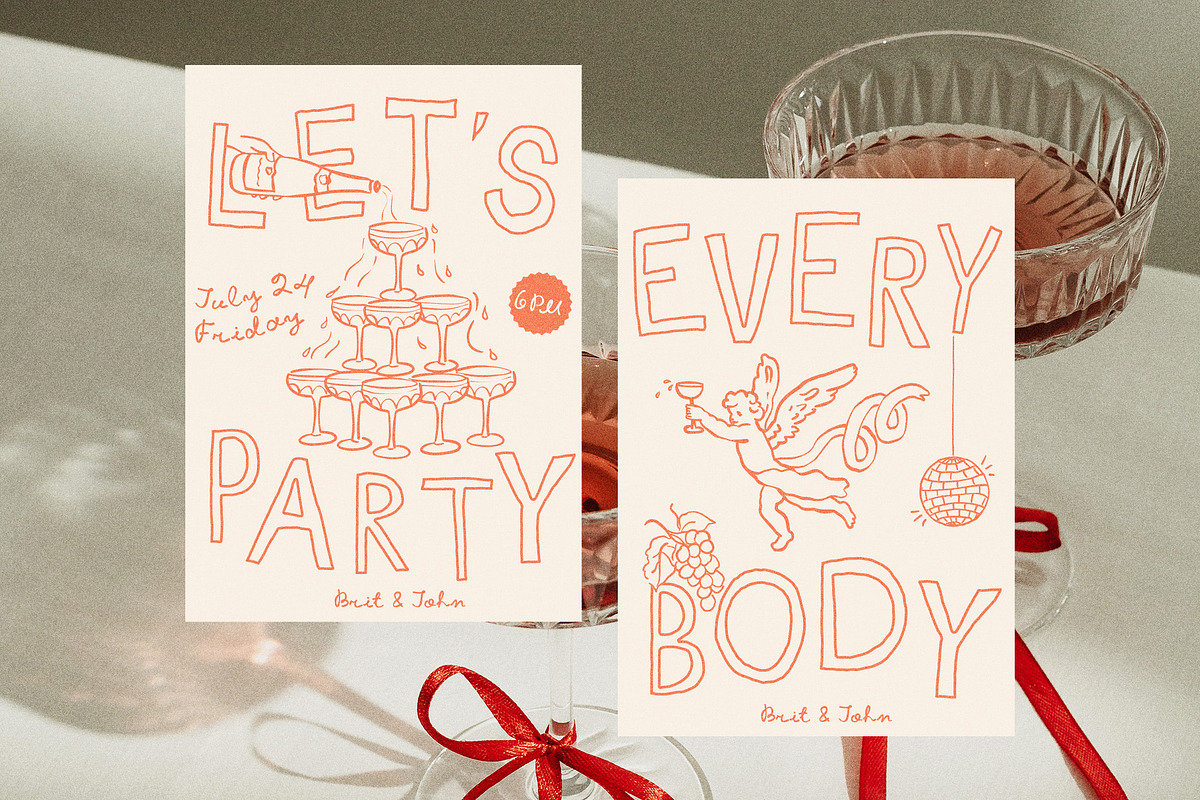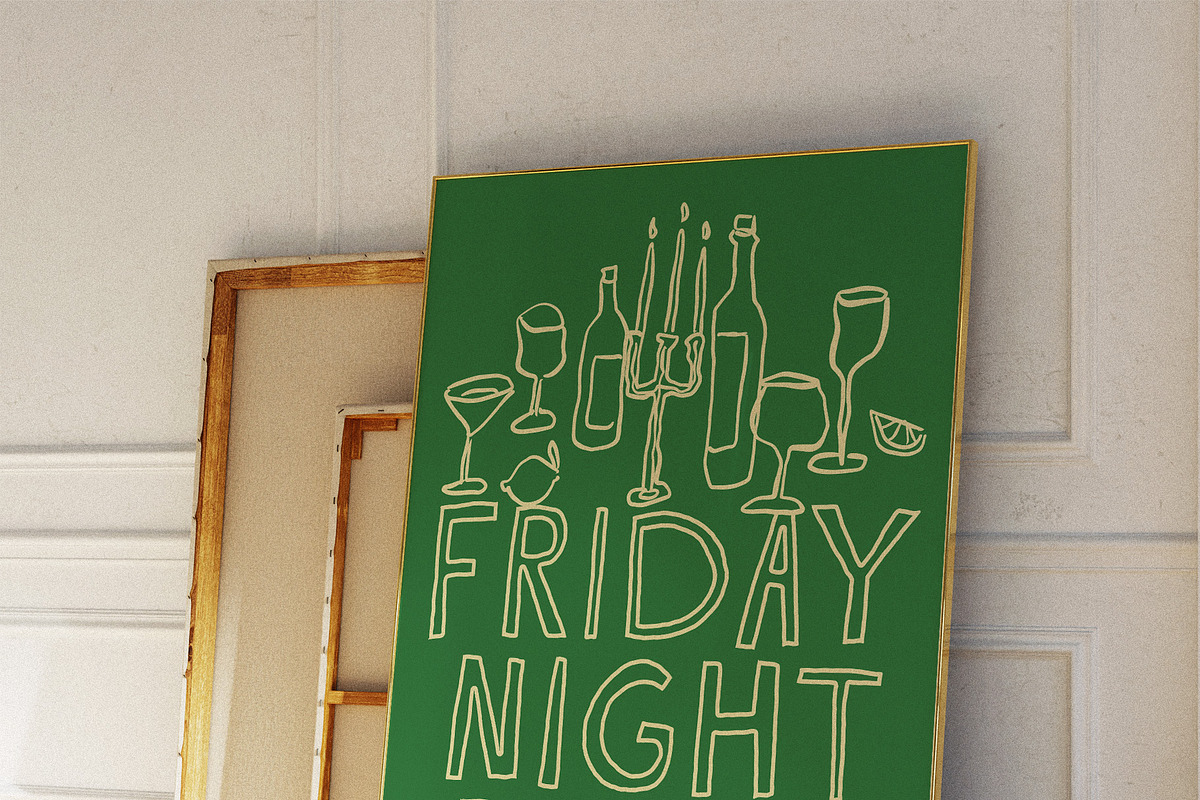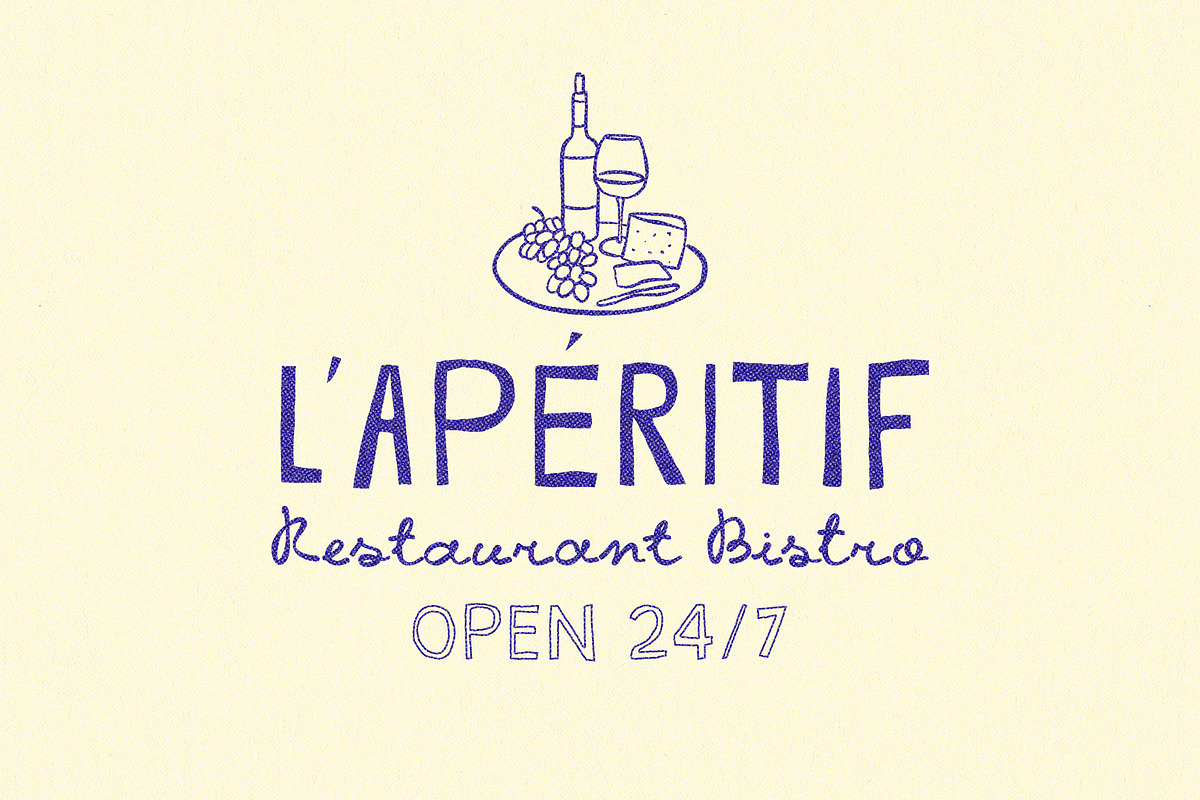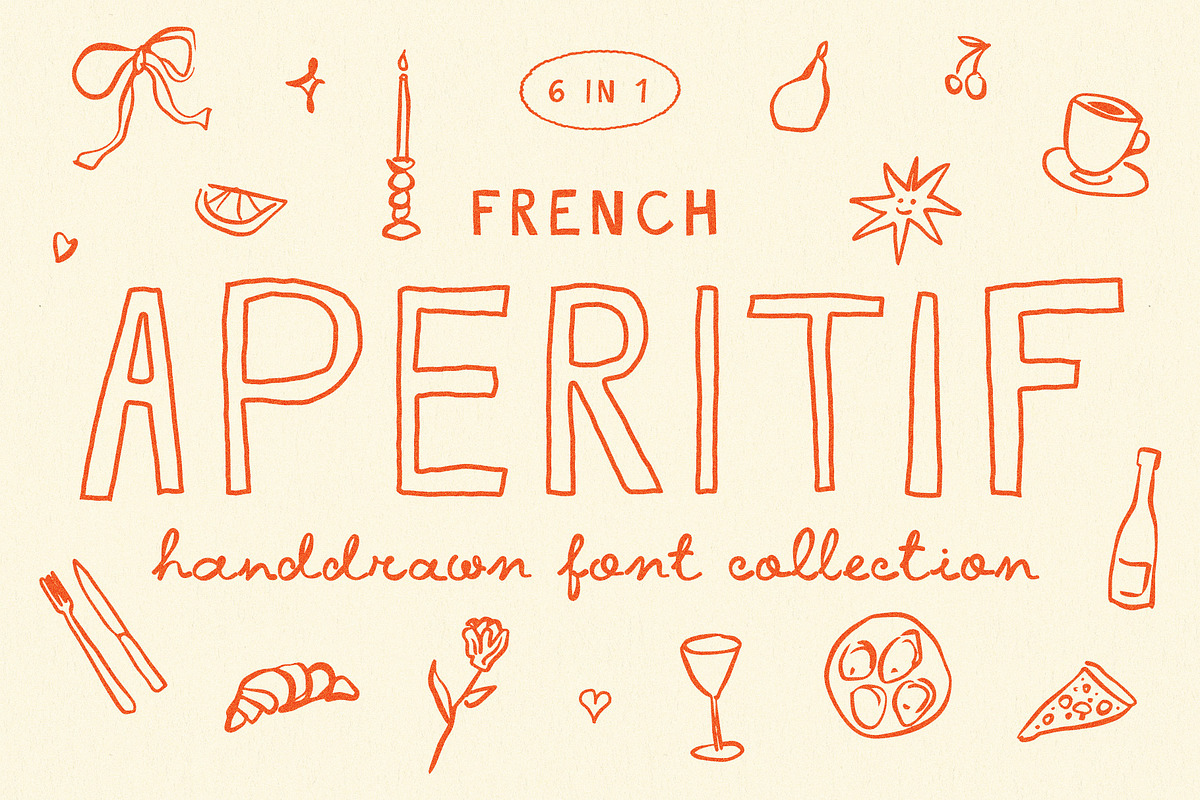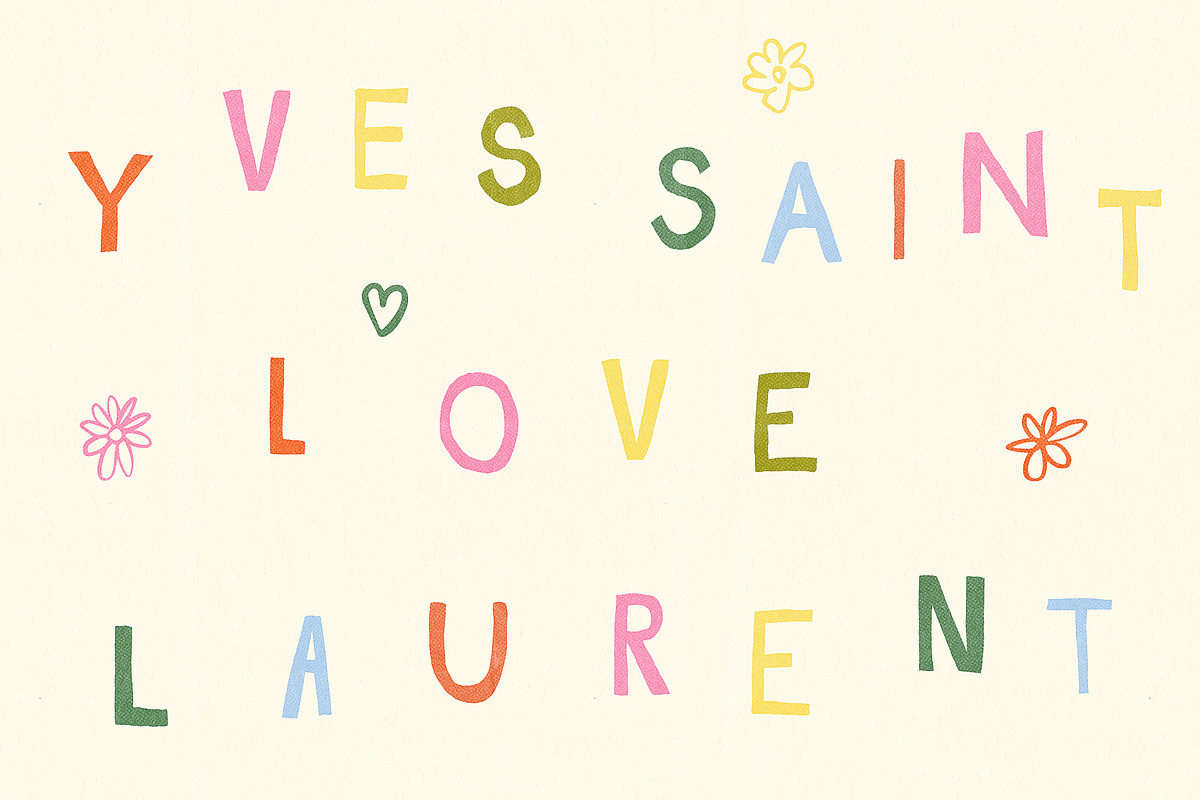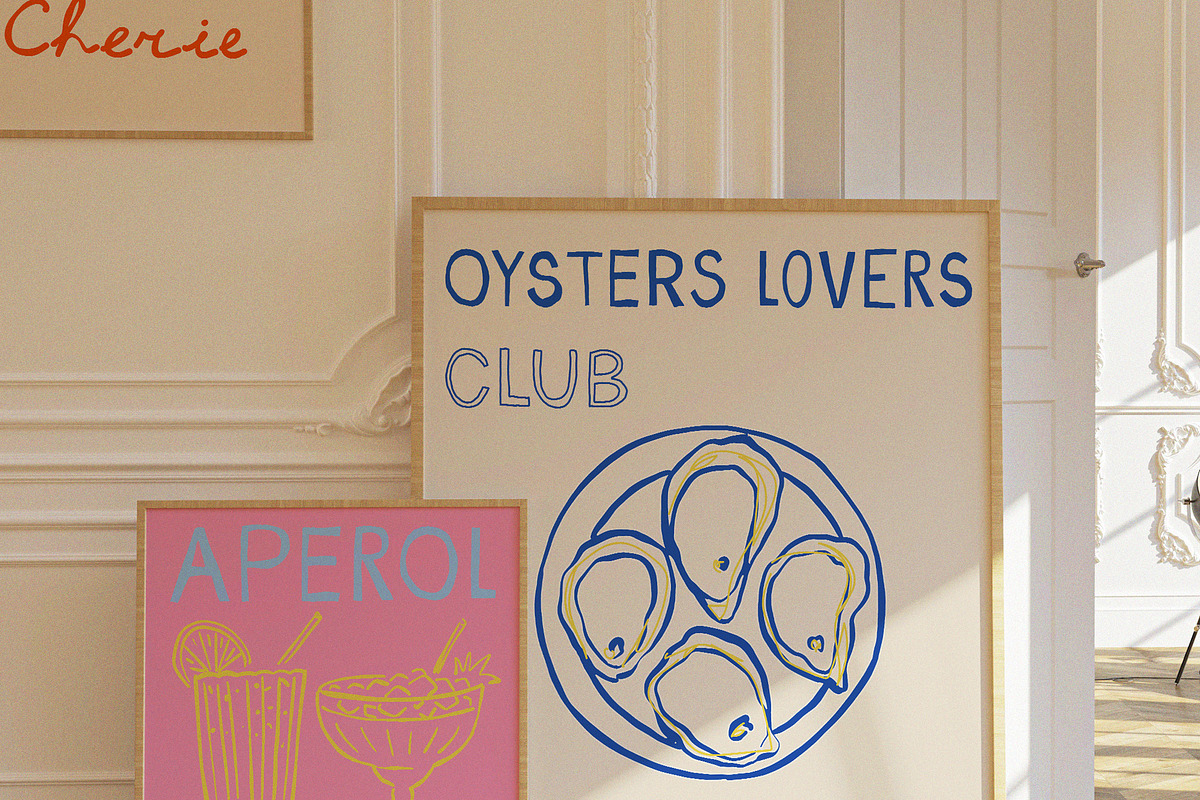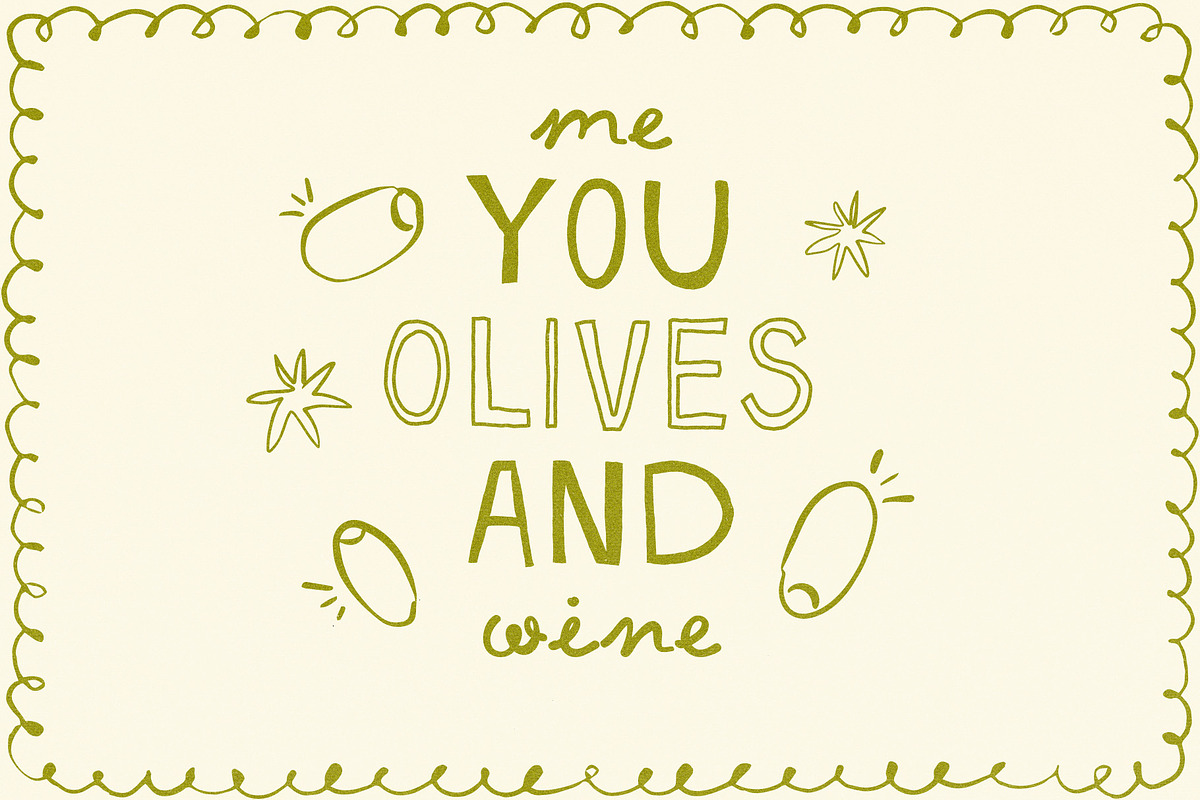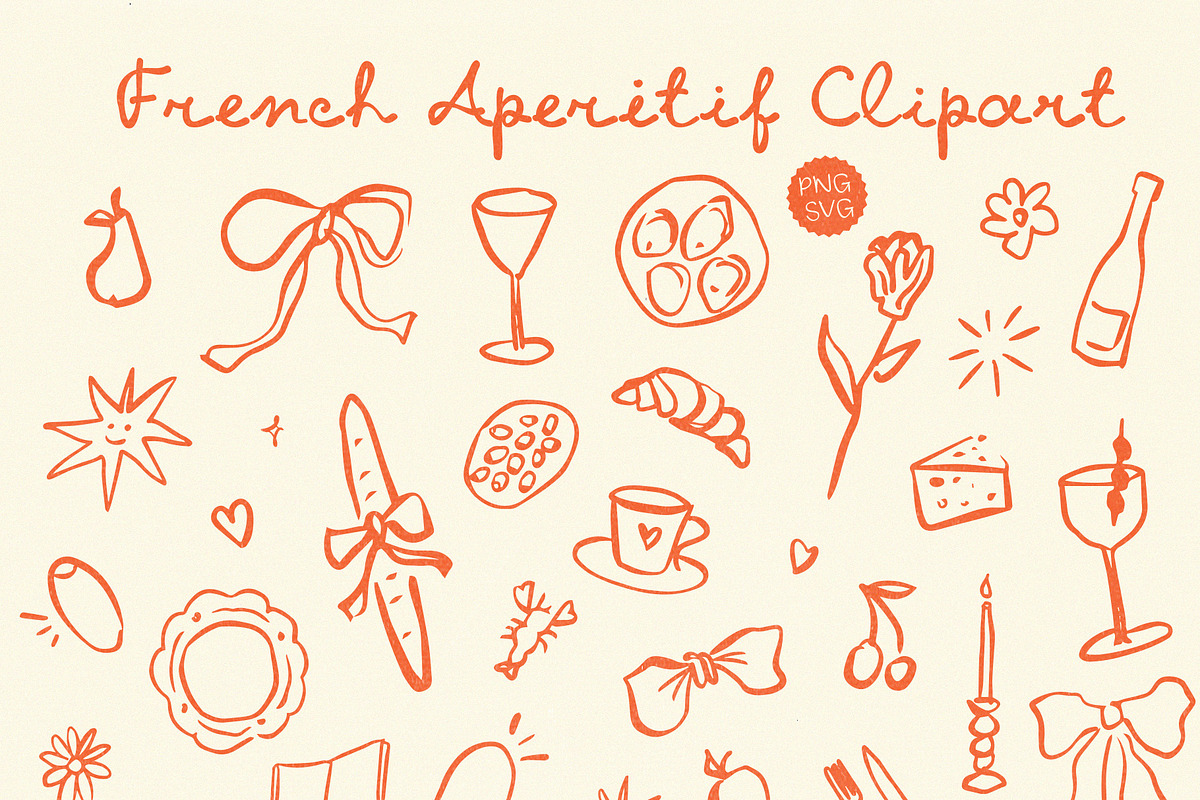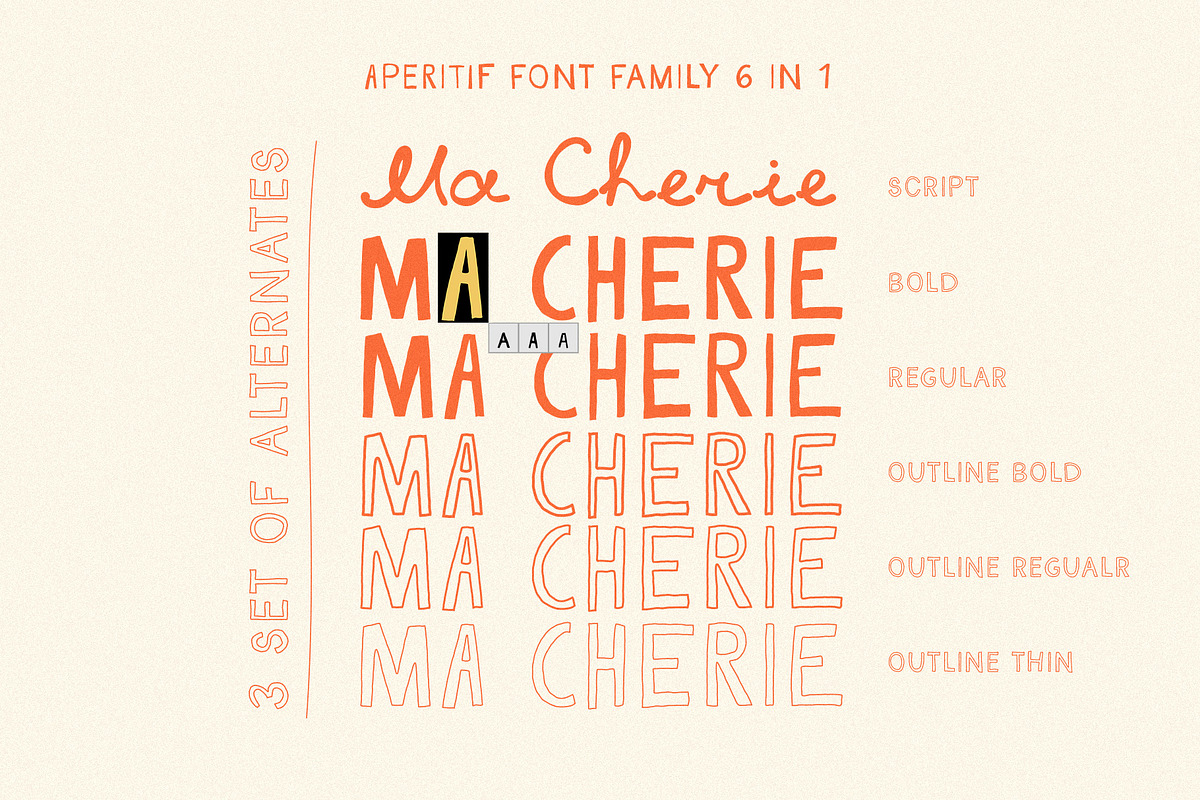
French Aperitif Quirky Font Family
Meet French Aperitif! Super trendy hand-drawn font family designed with love just for you! With 6 unique fonts and tons of fun alternate letters, you can easily add a super creative and personal touch to your writing. Perfect for modern posters and dreamy wedding stationery, Aperitif is also a fantastic toolkit for all your content creation needs.
This quirky, one-of-a-kind font family is 100% drawn by hand, making it truly special and unlike anything else out there. Let your imagination run wild and make your projects shine with Aperitif!